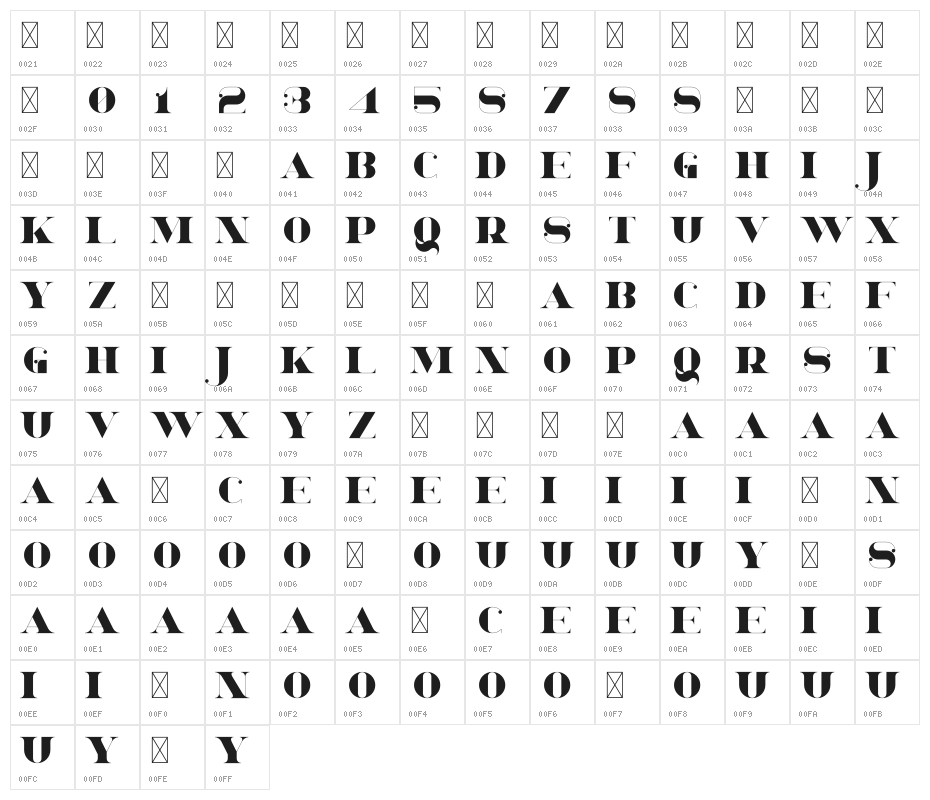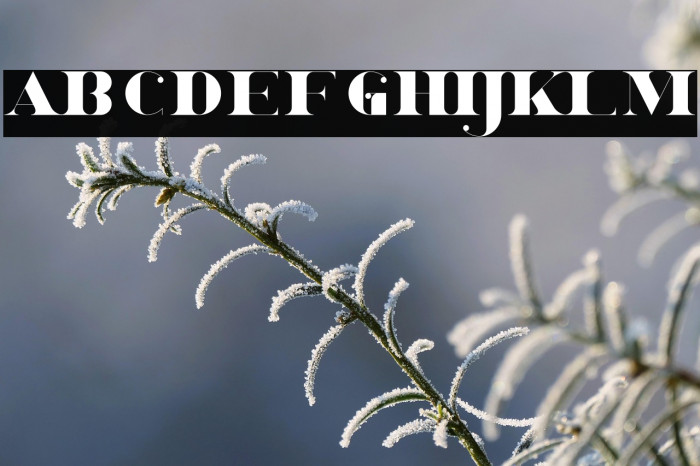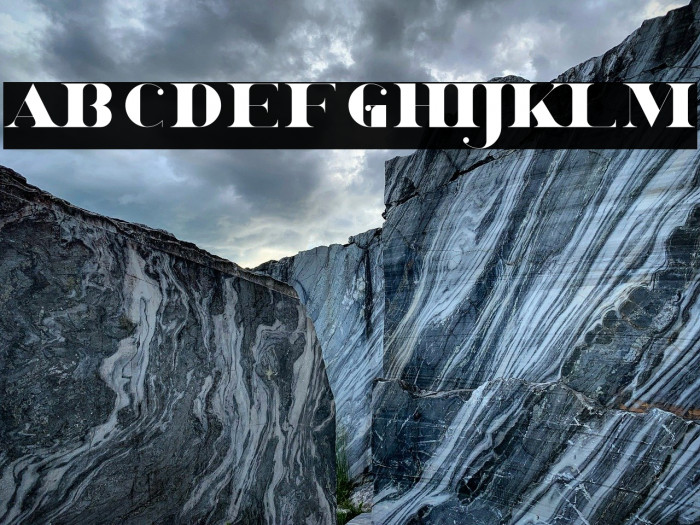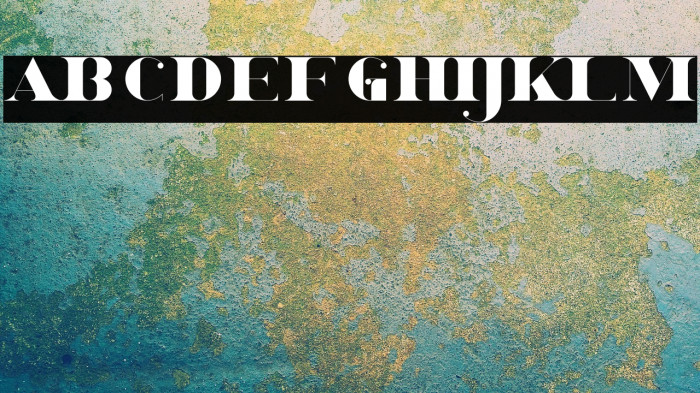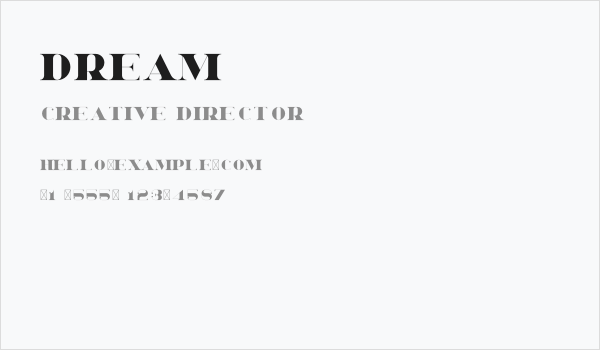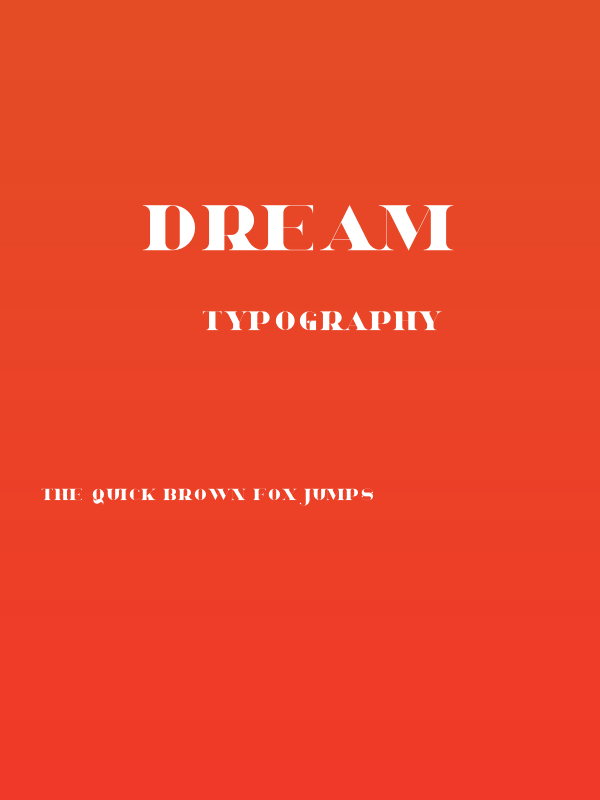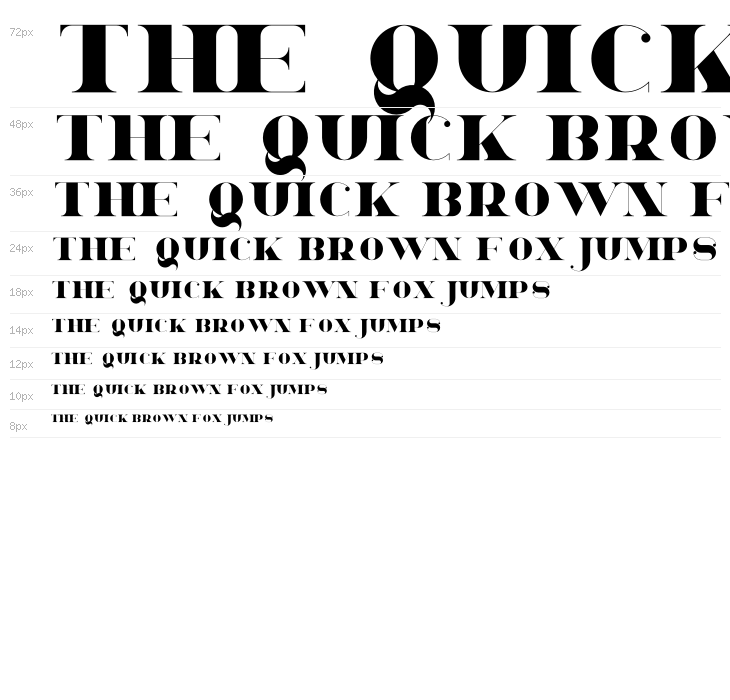
Dream Font
Dream Description
This font features a bold and dramatic style with high contrast between thick and thin strokes, giving it a striking and elegant appearance. The uppercase letters are designed with sharp, angular serifs and unique cut-out shapes that add a modern twist to the classic serif form. The numbers follow a similar design, maintaining the high contrast and distinctive style. The overall look is both sophisticated and contemporary, making it suitable for eye-catching headlines and branding projects. The special characters are not clearly visible, but the overall design suggests they would follow the same bold and stylish aesthetic.
| Proposed Projects | Ideal for luxury branding, editorial headlines, and high-impact posters. |